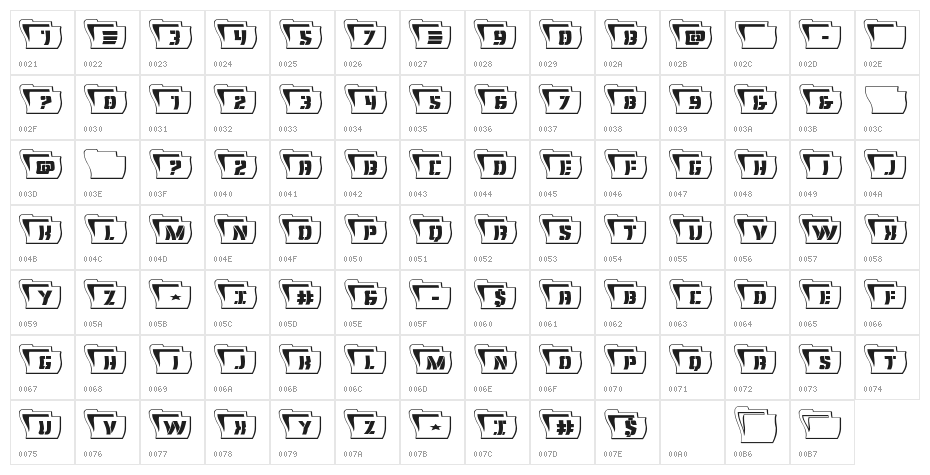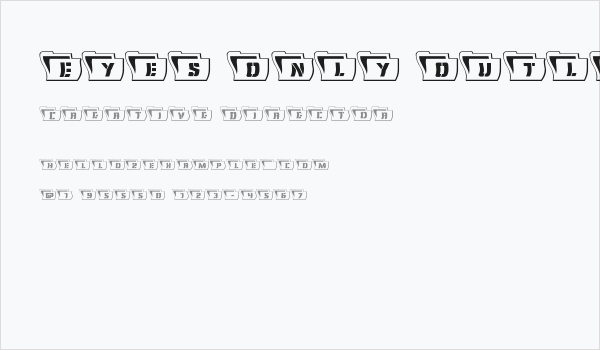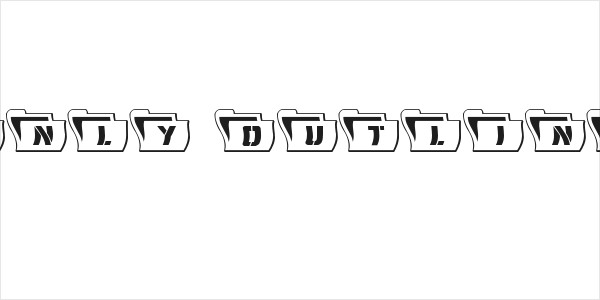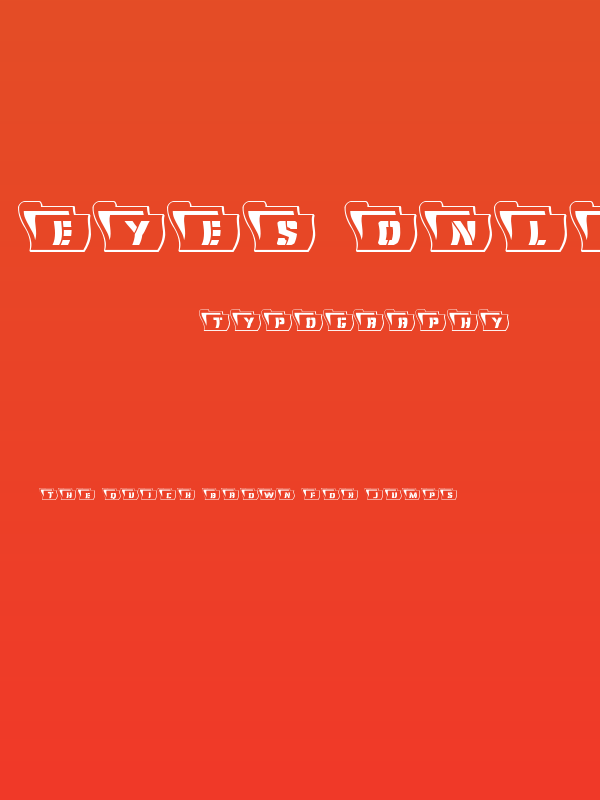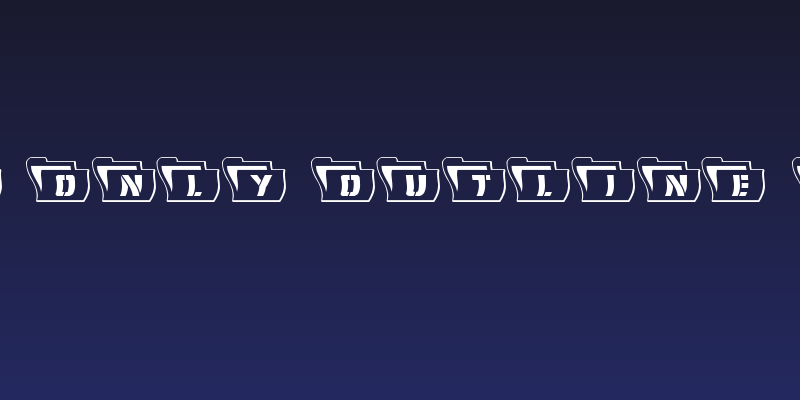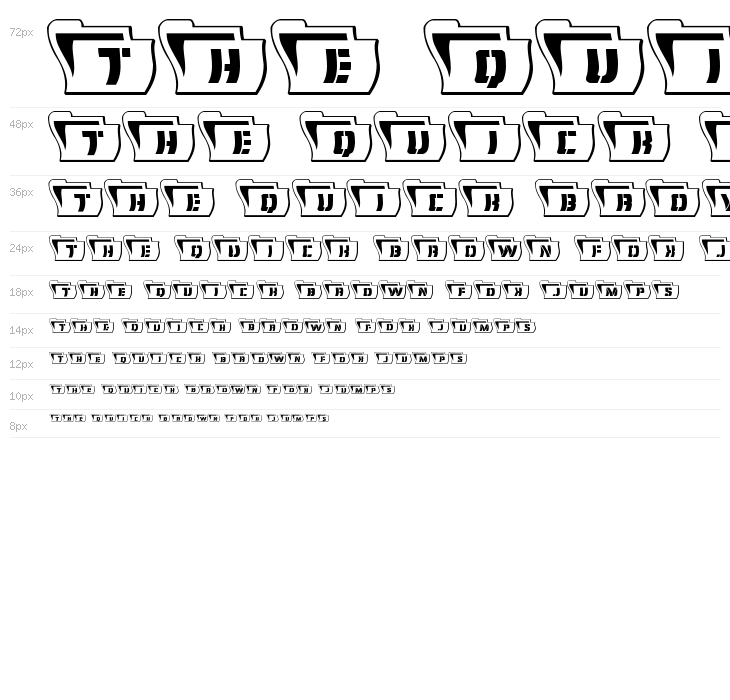
Eyes Only Outline Wavy Font
Eyes Only Outline Wavy Description
This font features a bold, outlined style with a wavy, three-dimensional effect that gives each character a distinct shadow. The uppercase and lowercase letters maintain a consistent design, emphasizing a strong, impactful presence. The numerals and special characters follow the same aesthetic, ensuring uniformity across all glyphs. The font's unique outline and shadow create a sense of depth, making it ideal for eye-catching designs. Its boldness and decorative nature make it suitable for projects that require a standout typeface.
| Proposed Projects | Ideal for posters, logos, headlines, and any design requiring a striking, decorative typeface. |